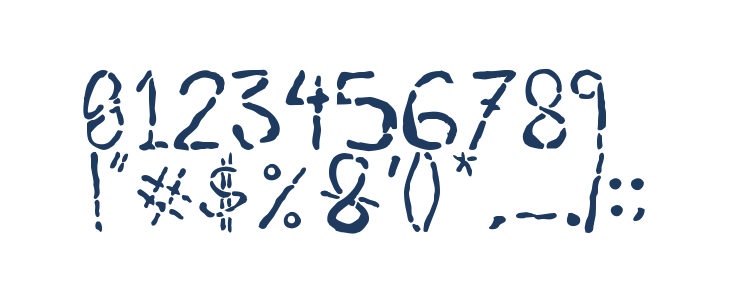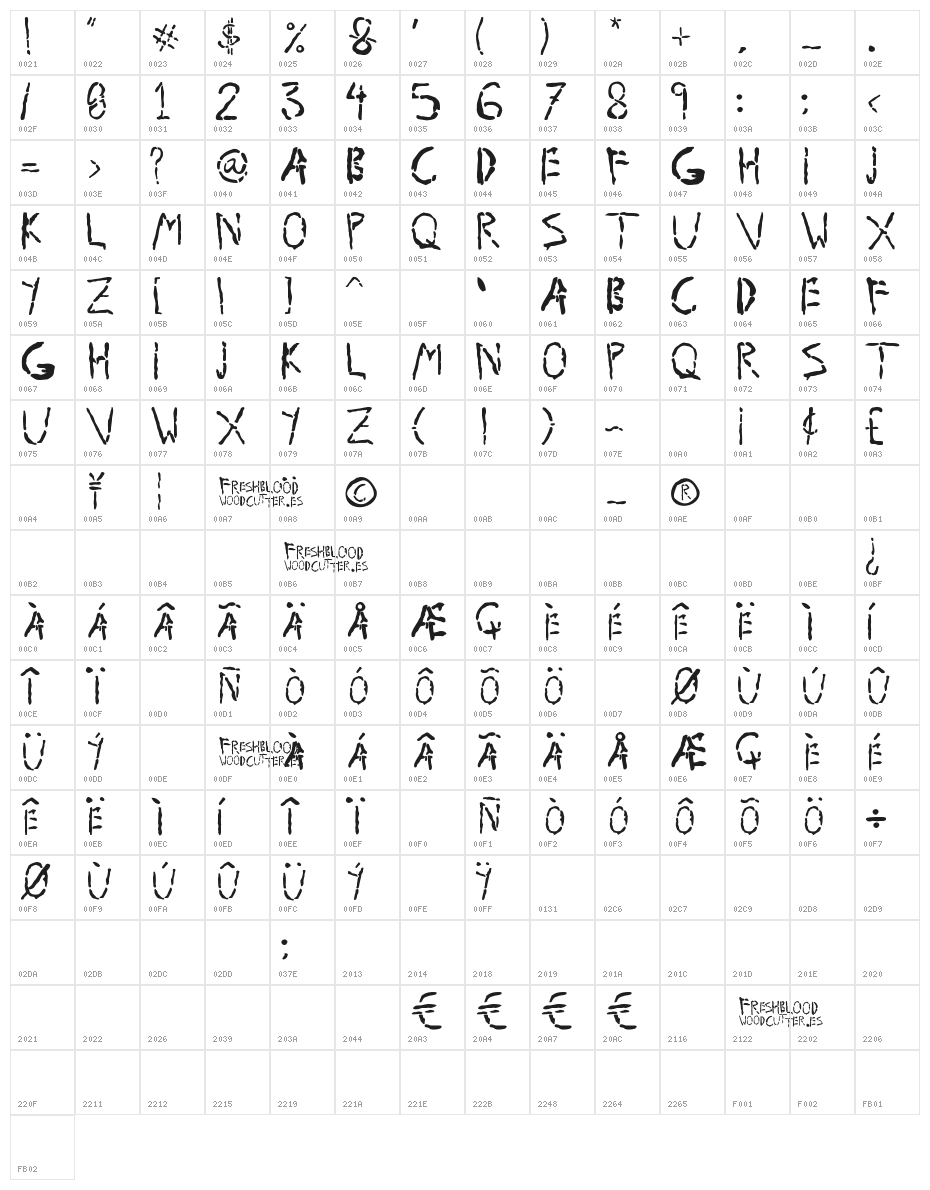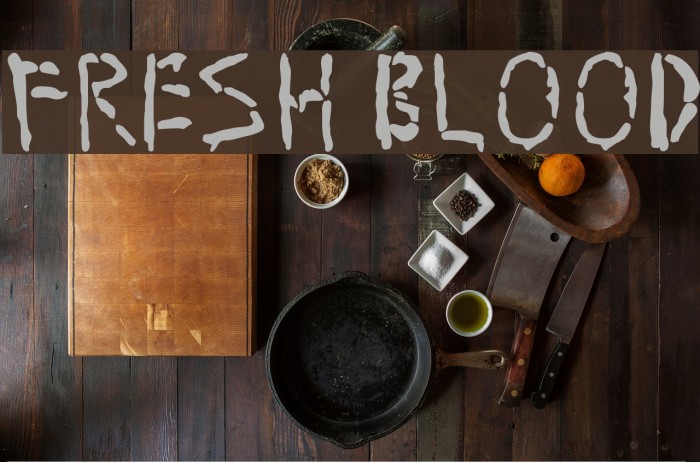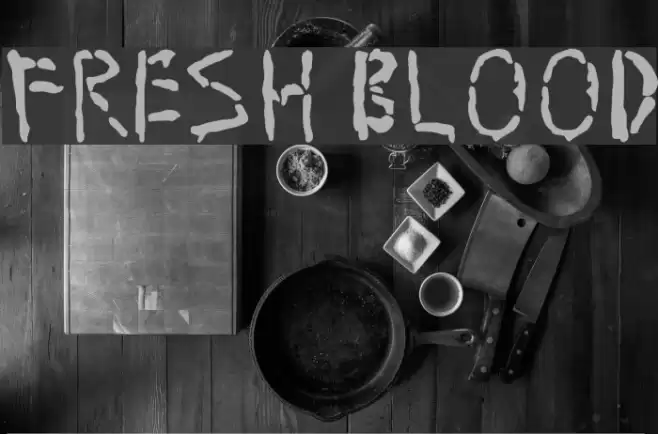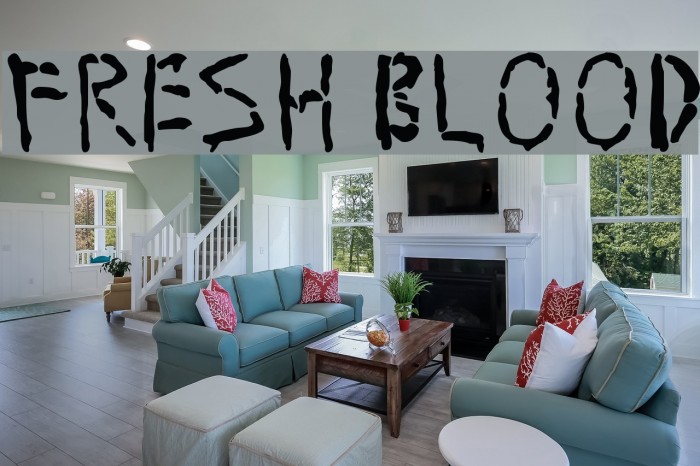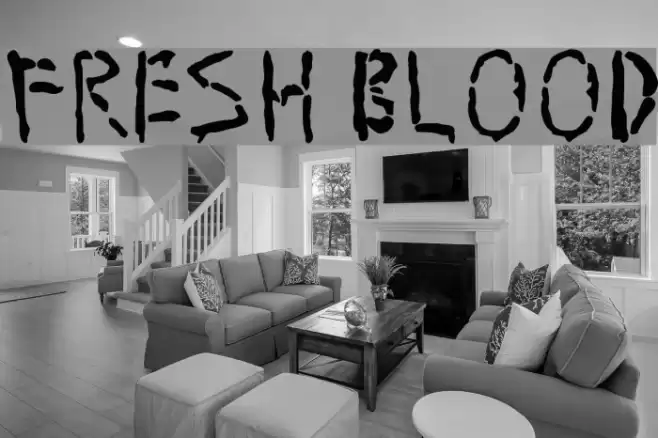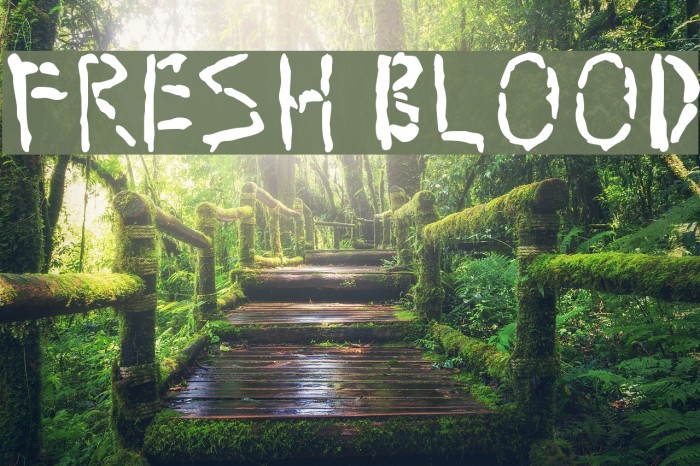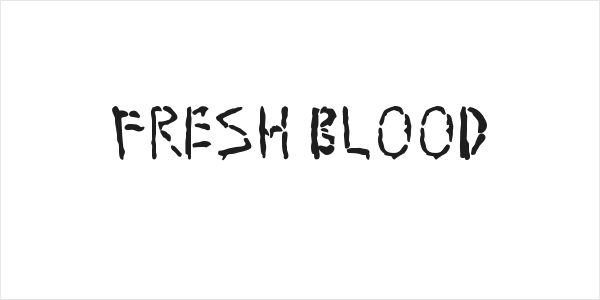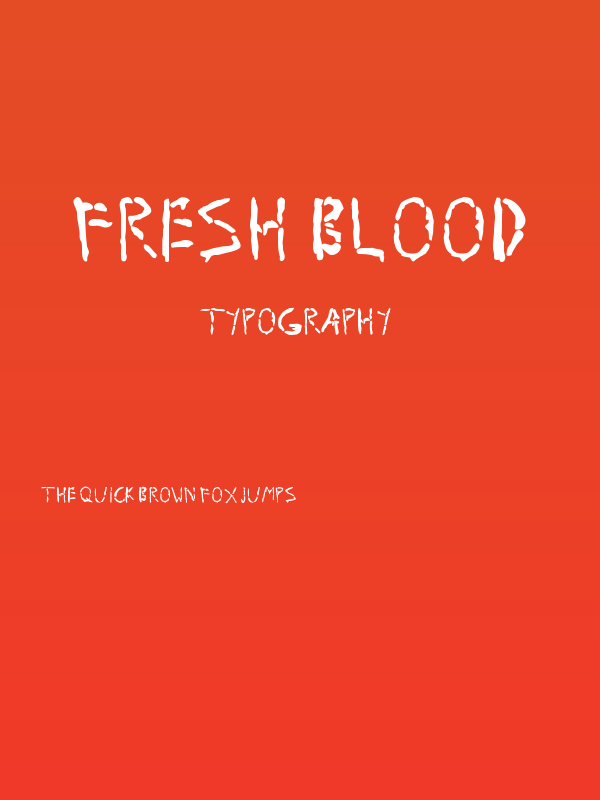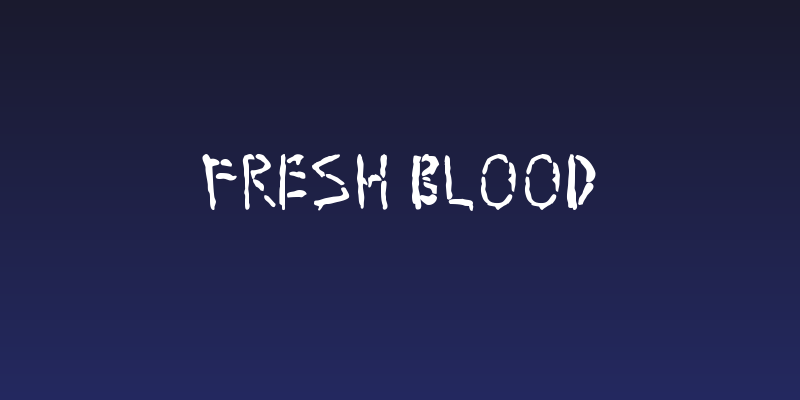
Fresh Blood Font
Fresh Blood Description
This font features a dramatic and edgy design, reminiscent of dripping paint or blood. The characters have an irregular, jagged appearance, with uneven strokes that create a sense of movement and chaos. The uppercase and lowercase letters maintain a consistent style, enhancing the font's cohesive look. Numbers and special characters are designed with the same dynamic flair, making them stand out. This font is perfect for projects that require a bold, horror-themed aesthetic.